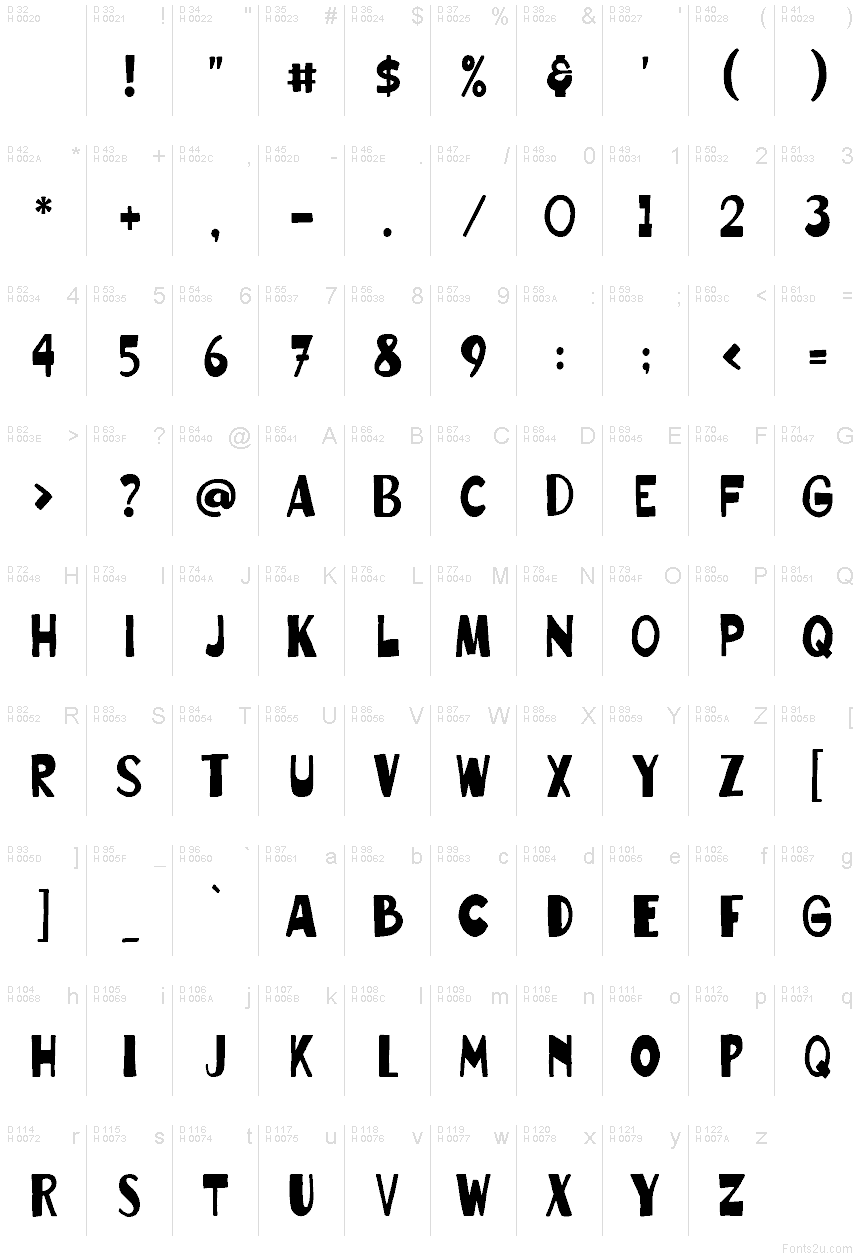
Rocket Doodle Regular
Rocket Doodle font by Blankids is a free bold cartoon display font. Its tall, slightly condensed letters feel hand-cut—chunky, inky strokes with soft edges and a gentle wobble that adds bounce without sacrificing readability. The shapes have a playful thrust, like rocket fins and moon-crater counters, giving headlines an energetic, kid-friendly lift.
Using Rocket Doodle, titles pop on kids’ books, STEM camp posters, toy packaging, classroom décor, party invitations, and playful YouTube thumbnails. The generous weight holds up at large sizes while the quirky rhythm keeps it lively in short phrases. For balance, pair this free font with a clean geometric sans for body copy, and give it extra tracking when you need a breezier, outer-space feel.